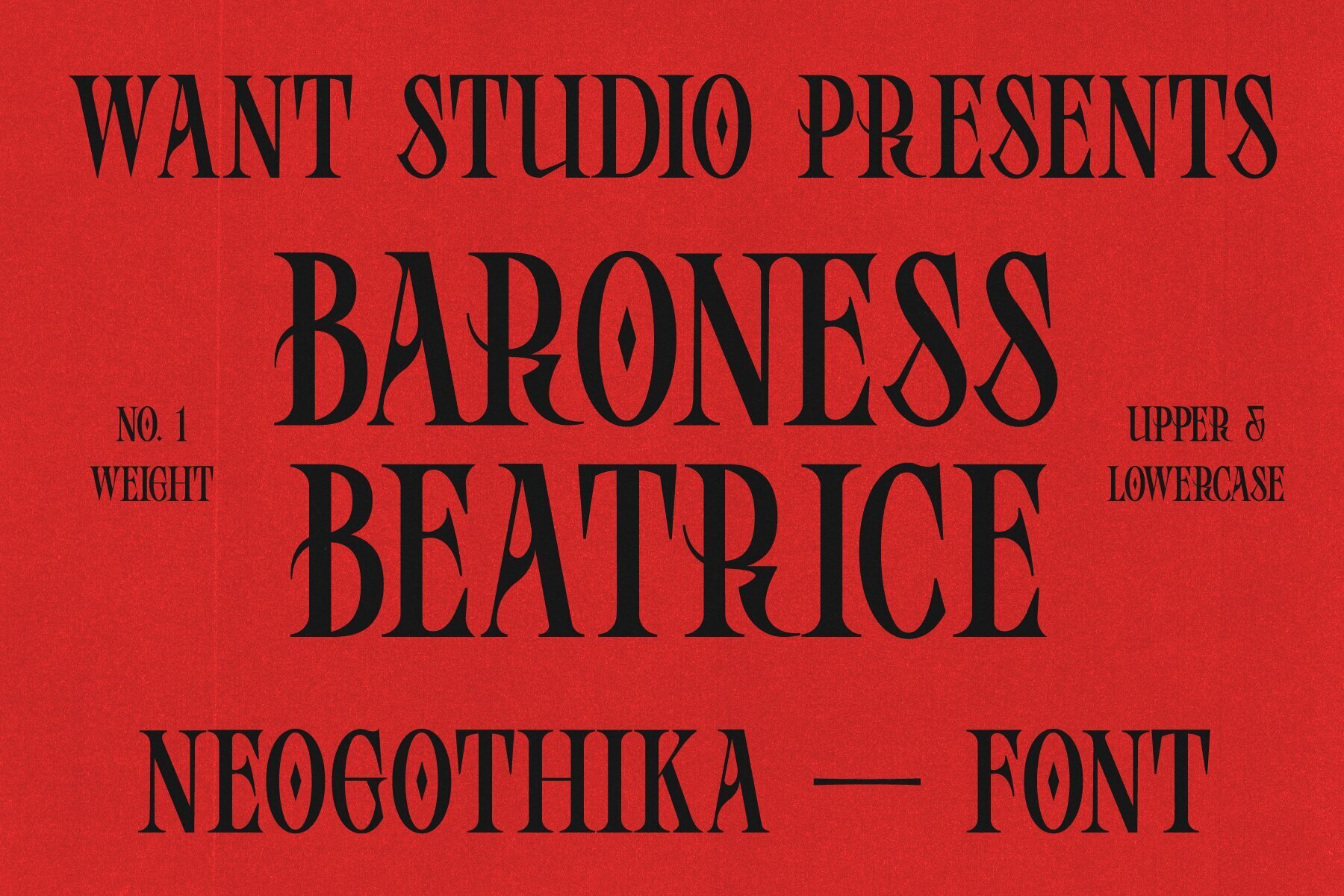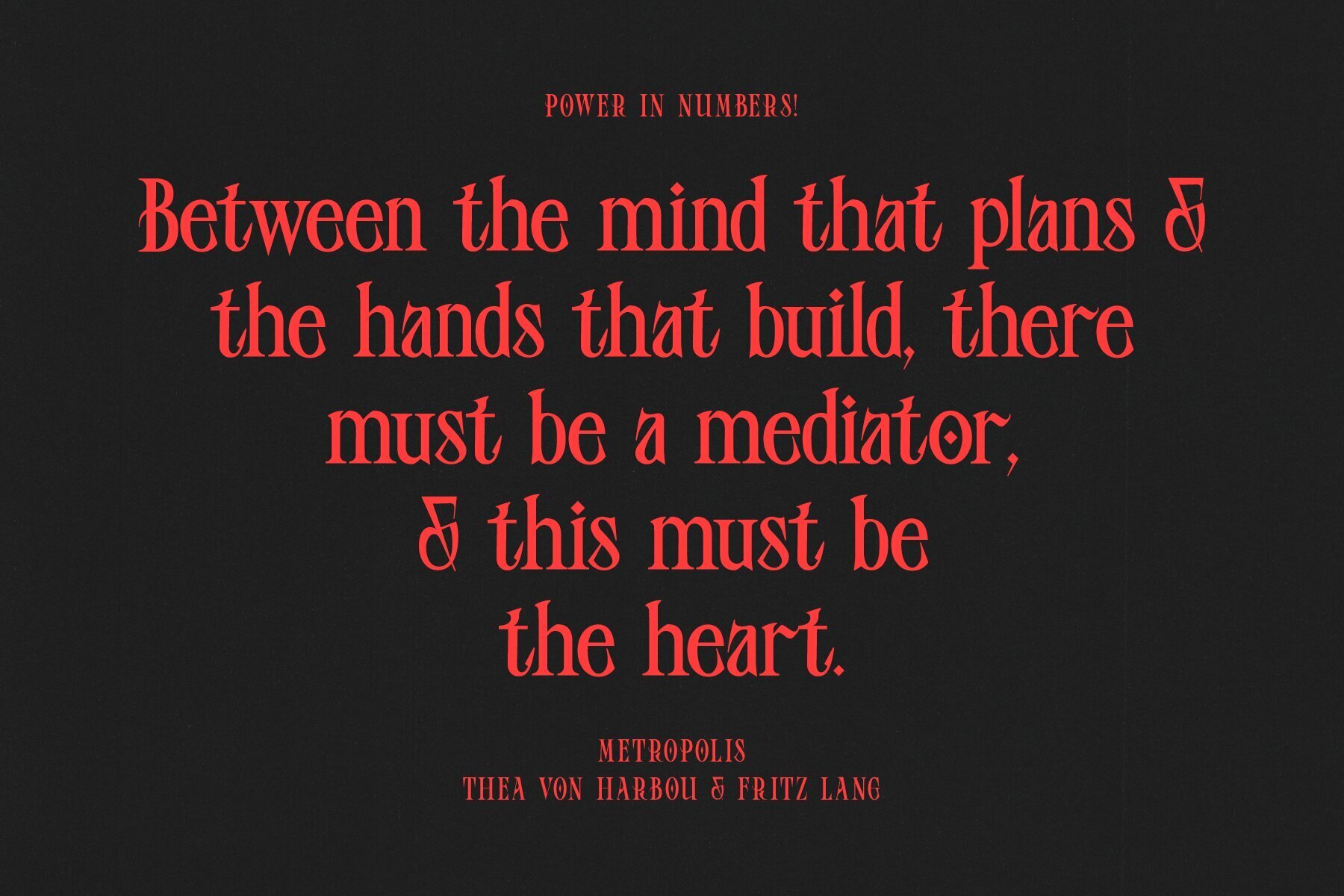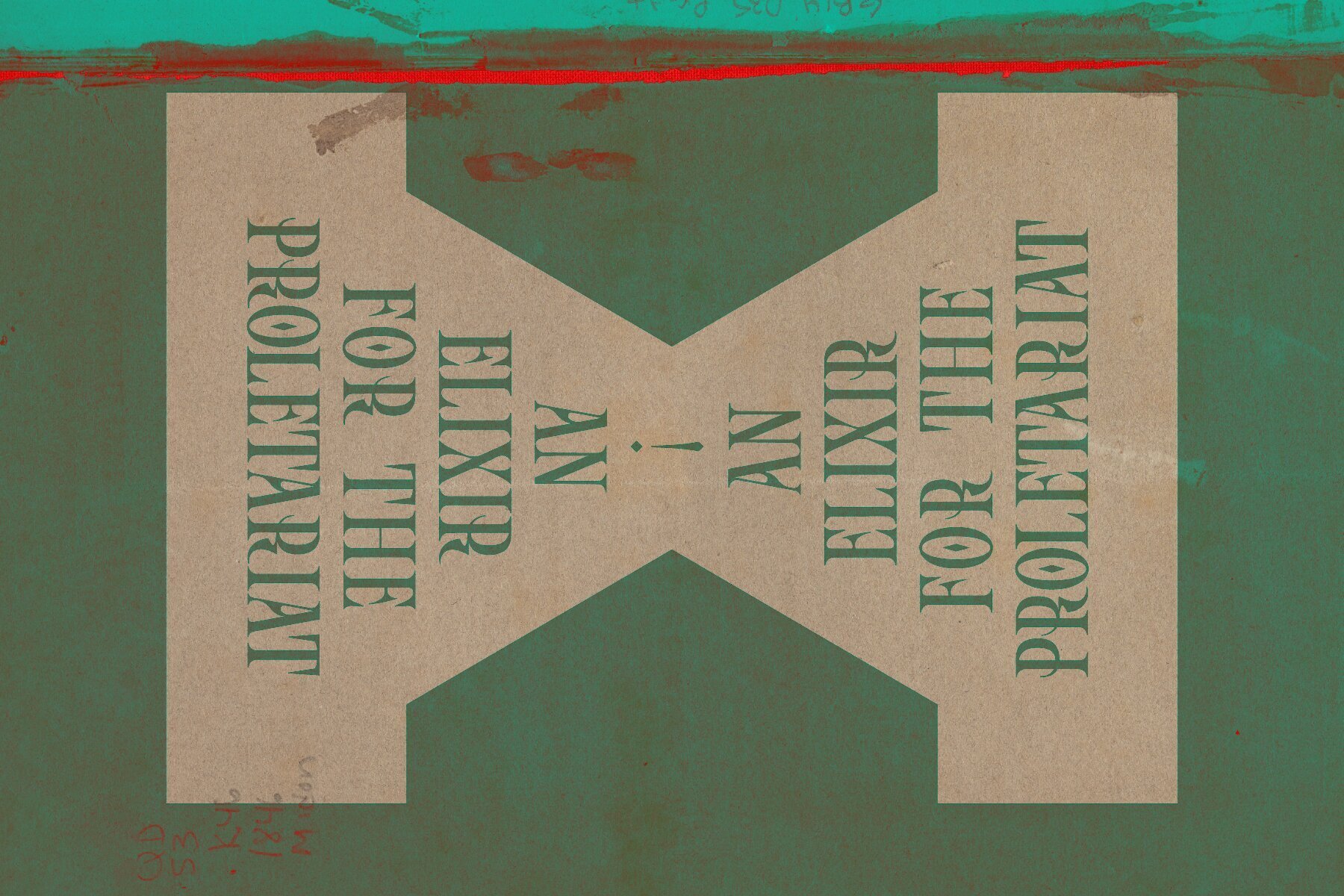
Baroness Beatrice Font
Introducing Baroness Beatrice, a font that melds contemporary elegance with the mystique of blackletter design. With sharp letterforms inspired by tales of feminine strength.
- Full uppercase set
- Full lowercase set
- Numerals
- Majority-use accents
- Common-use symbols